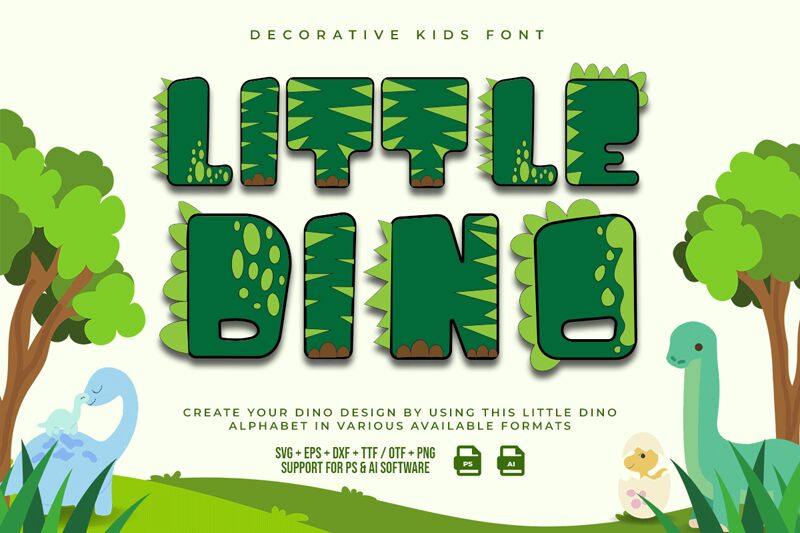
Little Dino font by Kong Font is a free font decorative typeface that brings a playful, whimsical style to your design projects. With its fun, chunky, and cartoon-like appearance, it’s perfect for adding a vibrant touch and imaginative vibes to your texts. Inspired by children-friendly themes, the font presents a lively and colorful approach that will grab the attention of its viewers.
This typeface is ideally used for themes that require a fun and creative essence like children’s storybooks, animated movie posters, educational games, toy packaging, party invitations, and social media graphics. It also allows you to realize your signage projects, wallpaper patterns, and coloring books for kids.